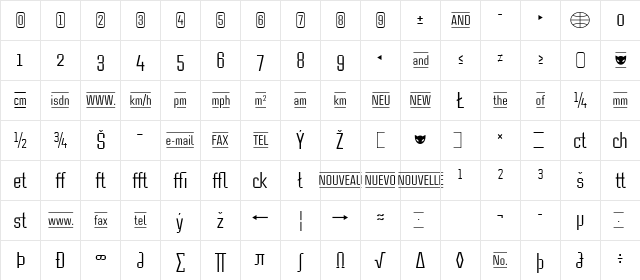
CaseStudyNoOne LT RgAlt Regular
Designer: Joerg Ewald Meissner, Gerd Sebastian Jakob
Design Context for CaseStudyNoOne LT RgAlt
CaseStudyNoOne LT RgAlt is a composed and adaptable typeface that performs quietly and consistently across a wide range of design contexts. Its slender proportions lend an understated elegance to any composition.